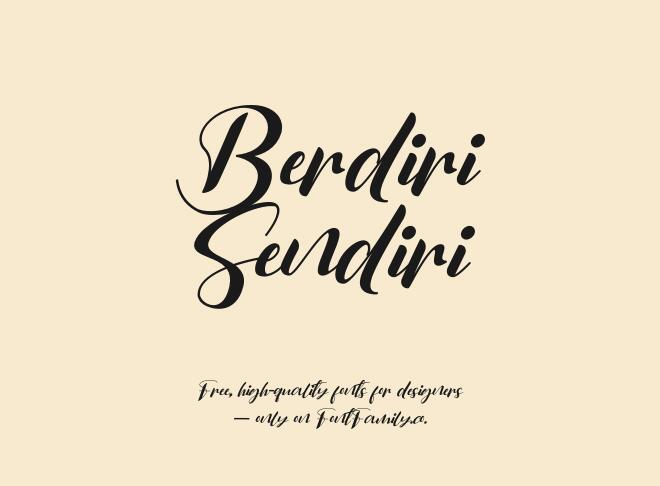
Berdiri Sendiri Font
Berdiri Sendiri Font is a unique, modern, and handwritten script font, designed by Creative Foundry. It offers a fresh and stylish aesthetic that's perfect for a diverse range of design projects. This font stands out for its fluidity and readability, making it an excellent choice for branding, logos, product packaging, wedding invitations, website headers, and more. Compared to other fonts, Berdiri Sendiri offers a distinctly modern and clean look, with a hint of elegance and sophistication. Its versatile nature allows it to be used in both formal and informal contexts, making it a must-have in every designer's toolkit. Despite its modern look, Berdiri Sendiri maintains a warm and inviting feel, making it a great choice for designs intended to be friendly and approachable.